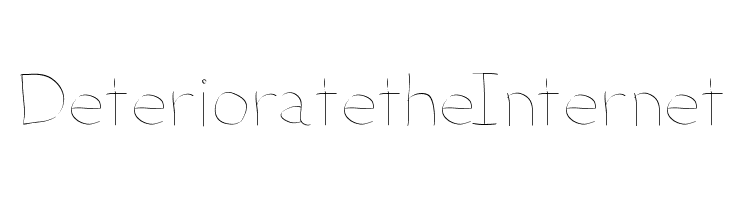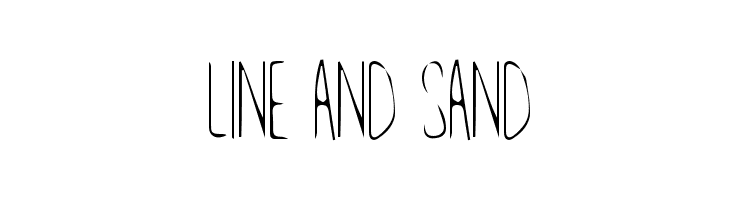
( Fonts by Sarah Morris )
A tall, slender font with thin strokes and a modern, elegant style.
( Fonts by Linh Pham Thi Dieu )
A charming handwritten font with fluid, continuous strokes and a personal touch.
( Fonts by Deepak Dogra )
A playful handwritten font with tall, narrow letterforms and a casual style.
A playful, hand-drawn font with rounded, informal characters.
A lively, handwritten font with fluid and dynamic strokes.
A playful, whimsical handwritten font with flowing cursive letters.
( Fonts by Niklas Meuter )
A casual, handwritten font with a playful and personal touch.